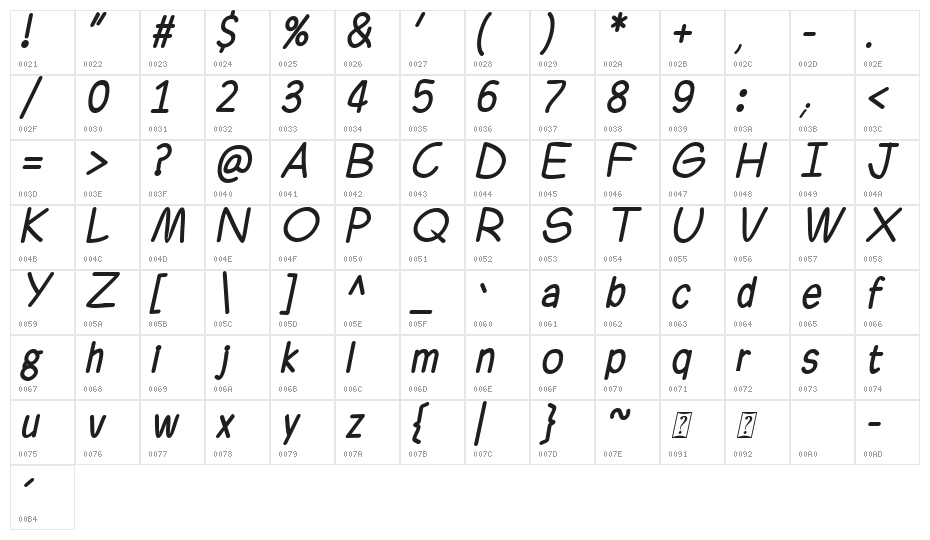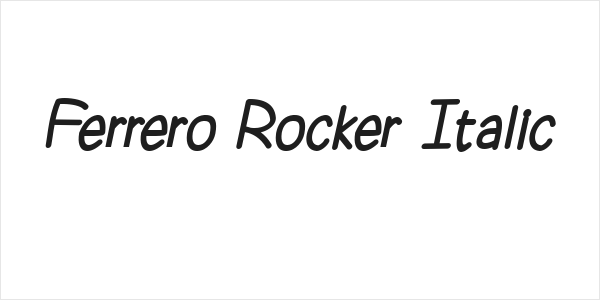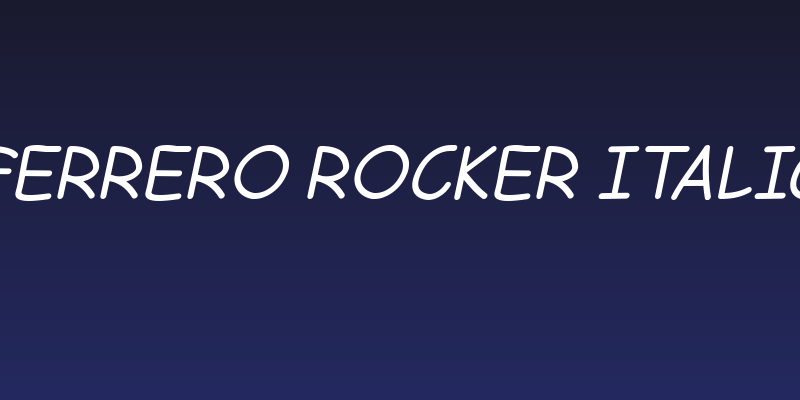
Ferrero Rocker Italic Font
Ferrero Rocker Italic Description
This font features a smooth, flowing italic style that gives it a dynamic and lively appearance. The letters are slightly slanted, enhancing the sense of motion and elegance. The strokes are consistent in thickness, providing a uniform look across all characters. The uppercase letters maintain a clean and straightforward design, while the lowercase letters exhibit a friendly and approachable feel. The numerals are clear and easy to read, matching the overall style of the alphabet. Special characters are well-integrated, ensuring versatility in various design contexts.
| Use Case | Headlines, Logos, Advertising |
| Proposed Projects | Ideal for branding, advertising, and creative projects that require a touch of elegance and motion. |